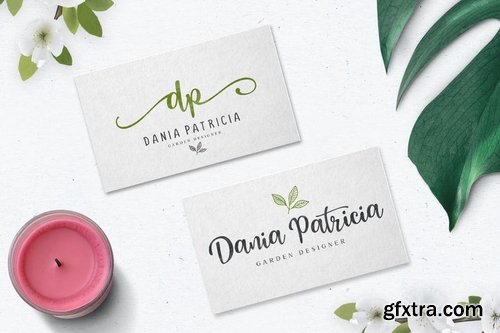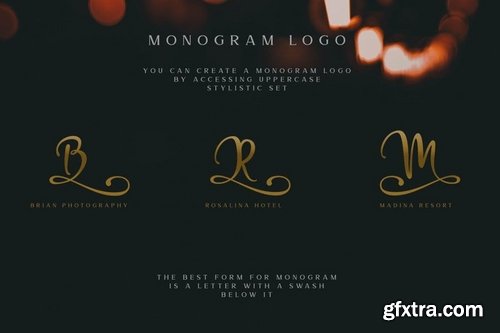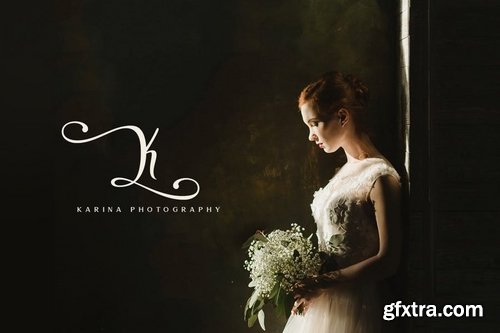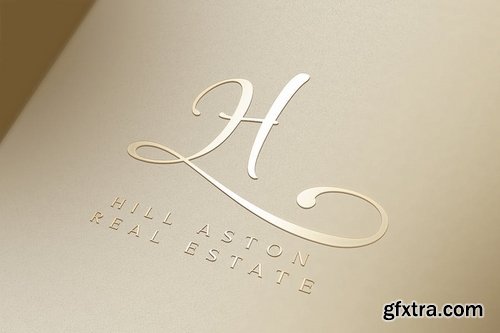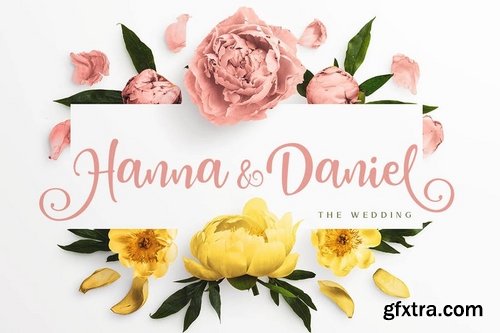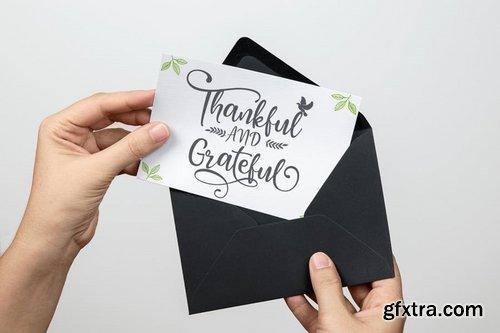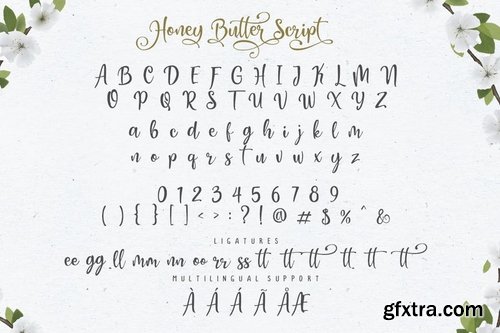
This is our newest product called Honey Butter . Honey Butter comes more than 500 alternate character . Honey Butter is really great font for logo, blog/web headline, clothing, invitation, poster,
cafe/resto sign, and many others.